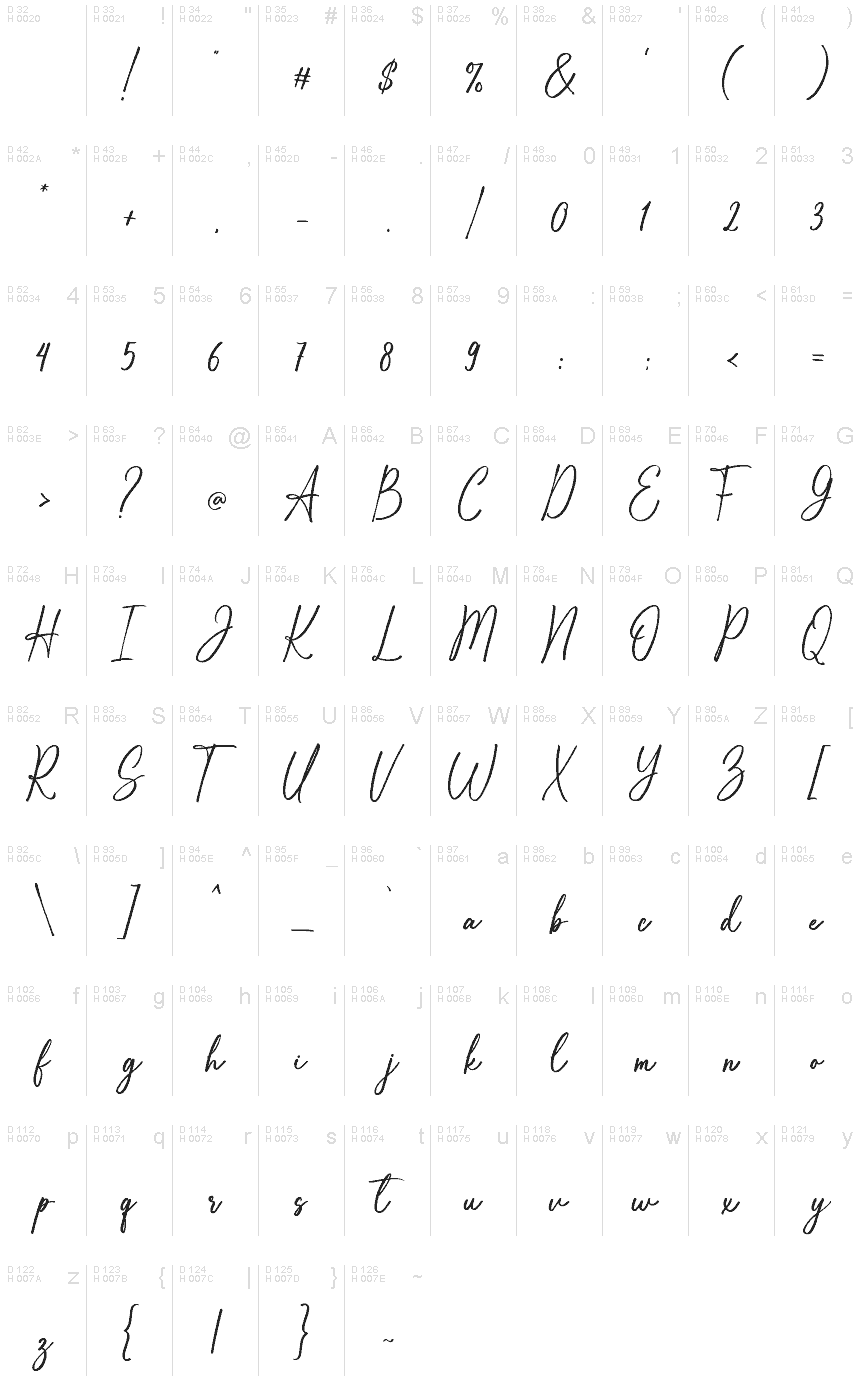
White Dahlia font is an elegant handwritten creation from Bluestype Studio. It brings together the expressiveness of a modern script with a handwritten aesthetic for an artistic flair that’s sophisticated yet relaxed. Each stroke feels natural and genuine, capturing the spontaneity of handwriting mingled with thoughtful design.
Dahlia fits effortlessly into branding design, business cards, social media posts, and stationery items like invitations or greeting cards. It’s an invaluable logo design resource and would look gorgeous on a book cover as well as in fashion magazines. Web builders can create immaculate headers and posters advertising theater plays or other cultural events.